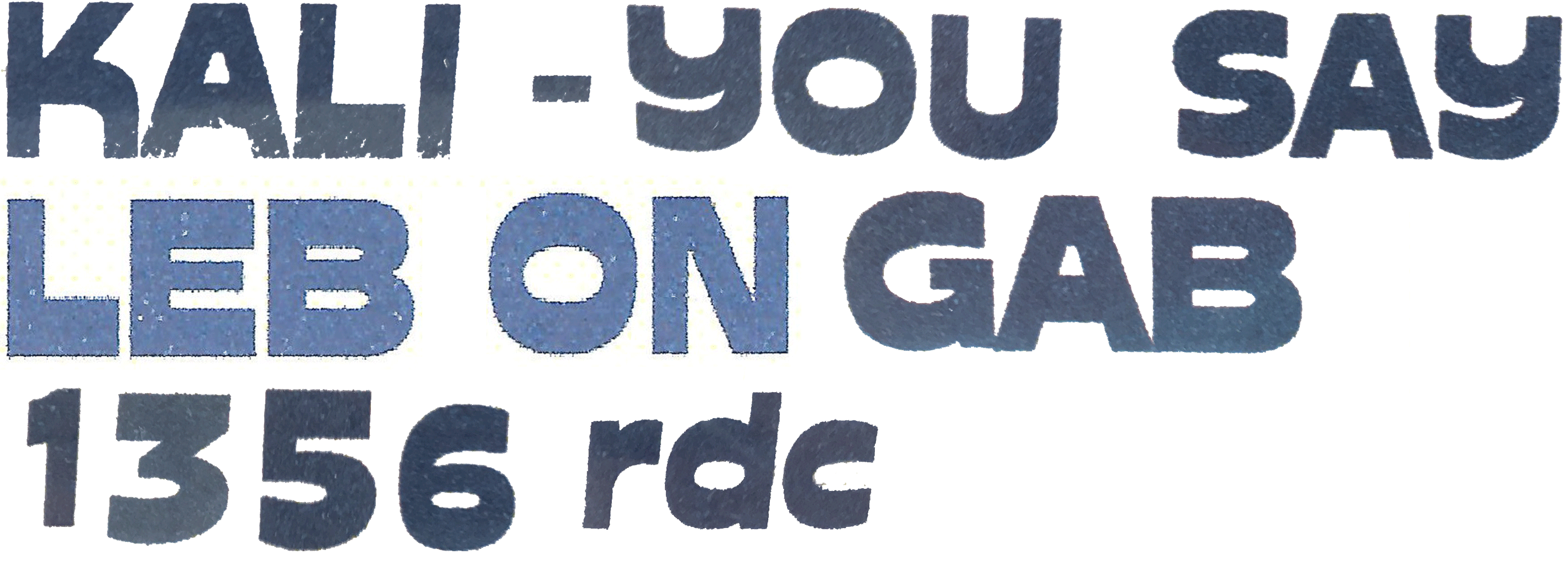
I’m looking for this writing font :
I tried with FONT IDENTIFIER but I didn’t get a good match.
A little more information :
- All letters are in caps except the last three (rdc)
- scratches on ‘KALI’ are unvolunteer
*I put some white at the base of KALI on both sides of the A so that it can be identified and see as glyphs with FONT IDENTIFIER
I notice especially the shape of the G with a leg, the horizontal oval inside the O and the number 6, the shorter stick in the middle of the capital E.